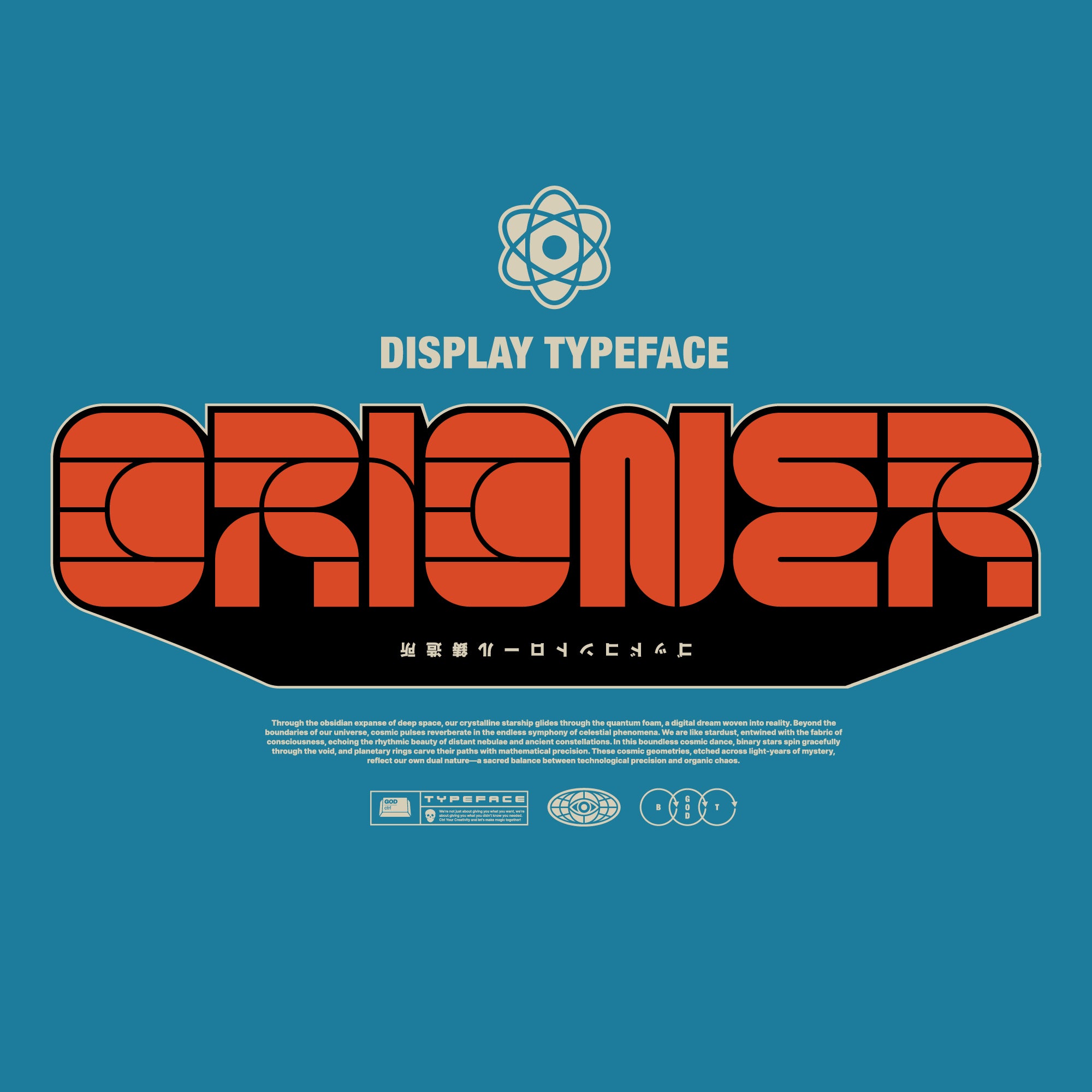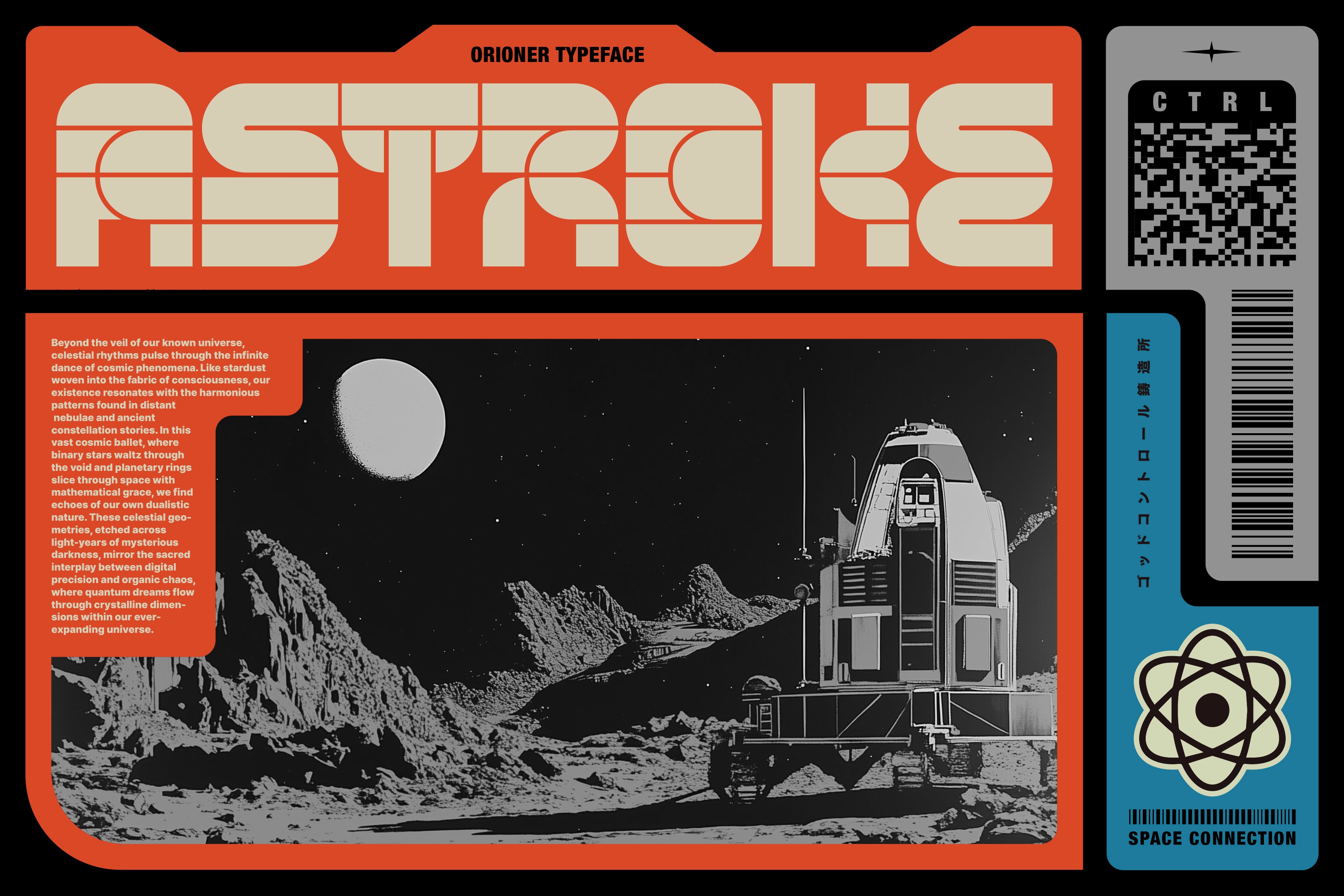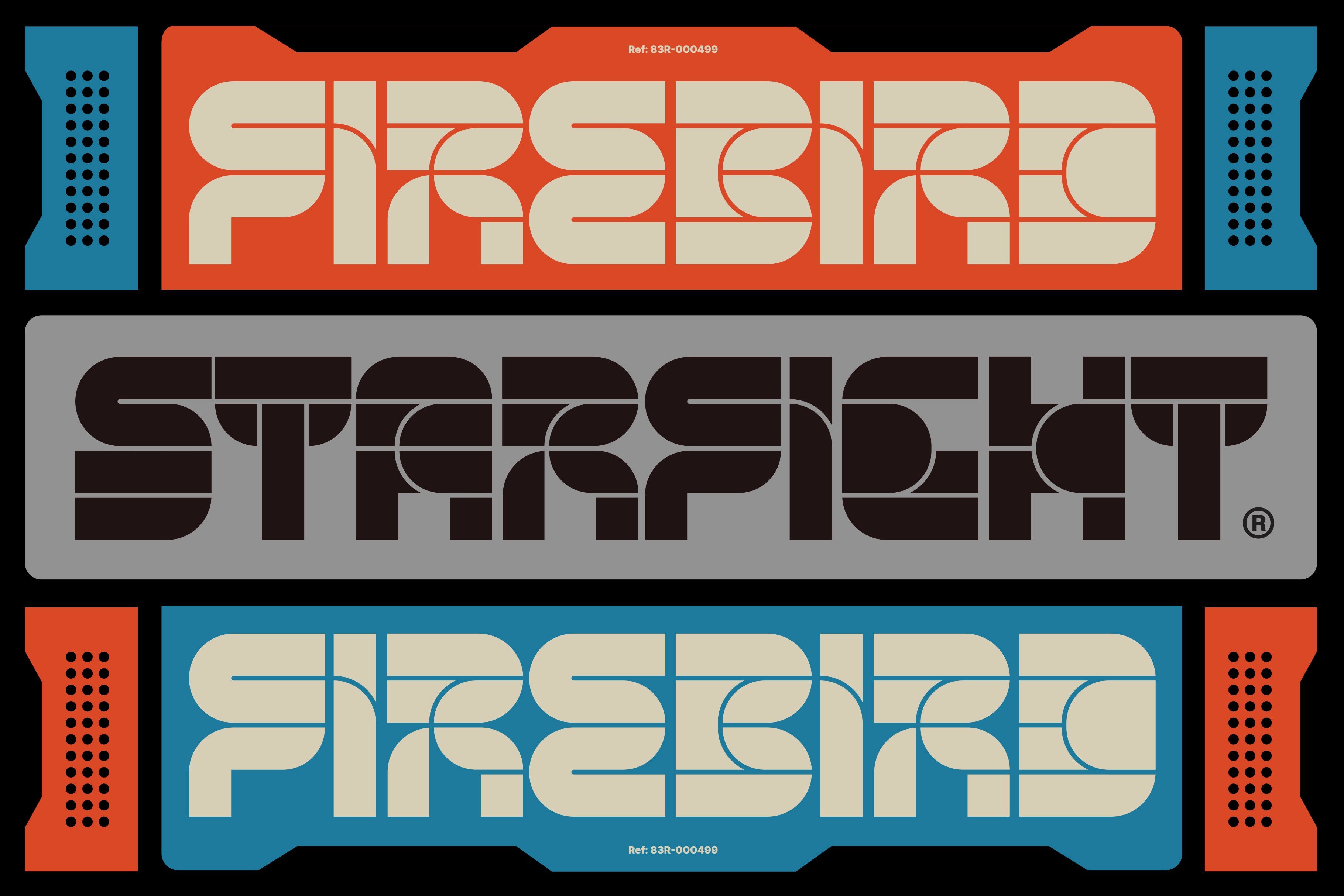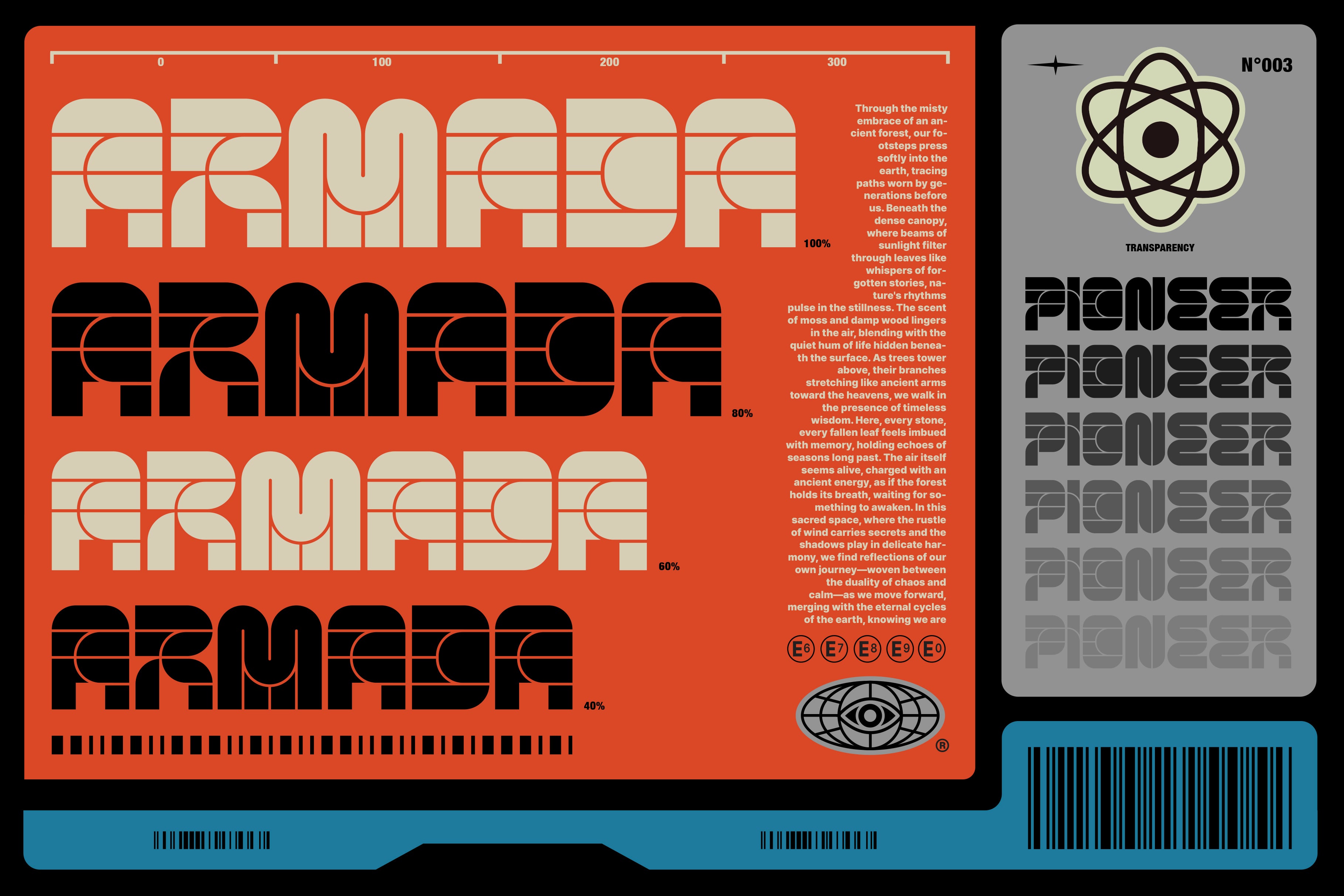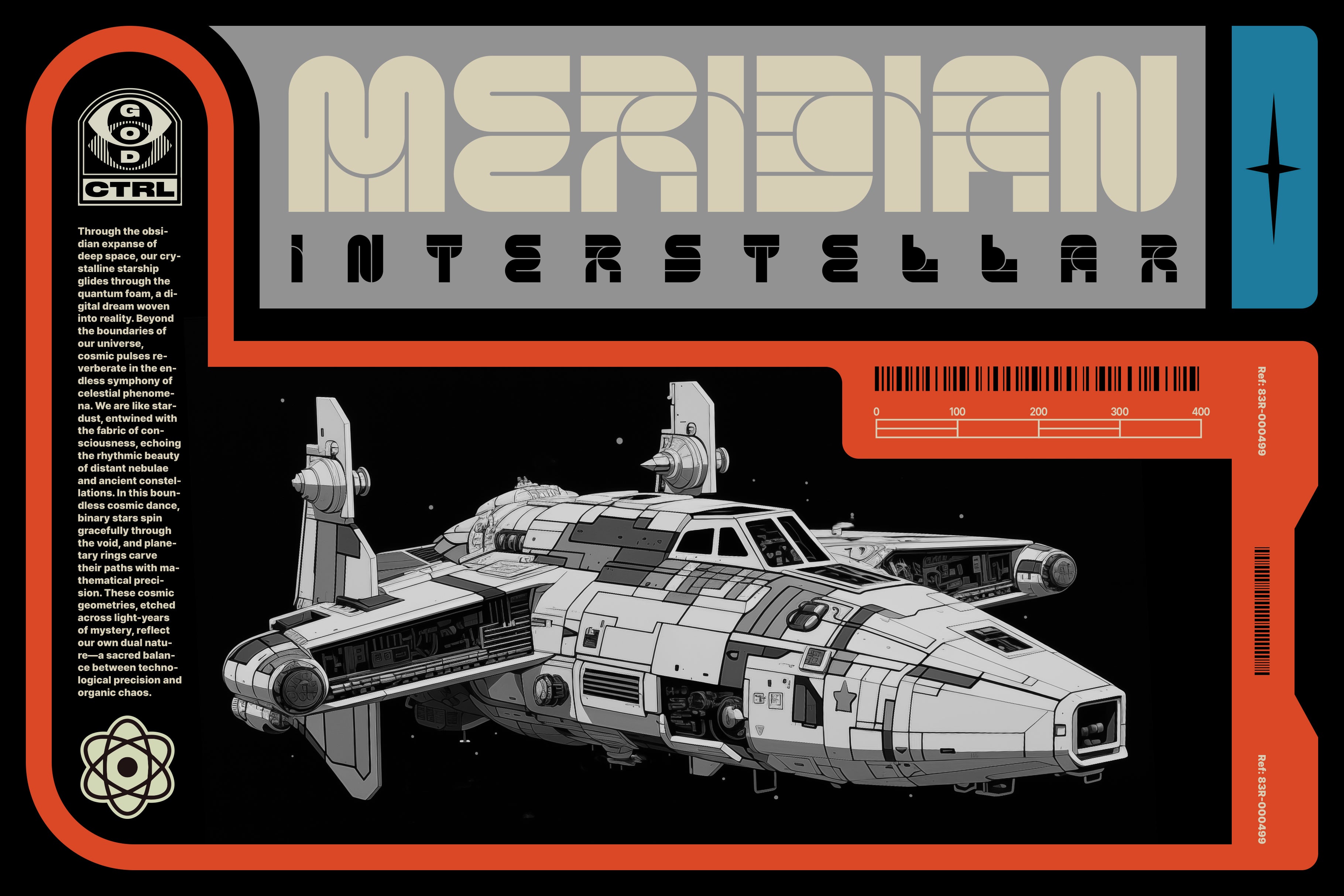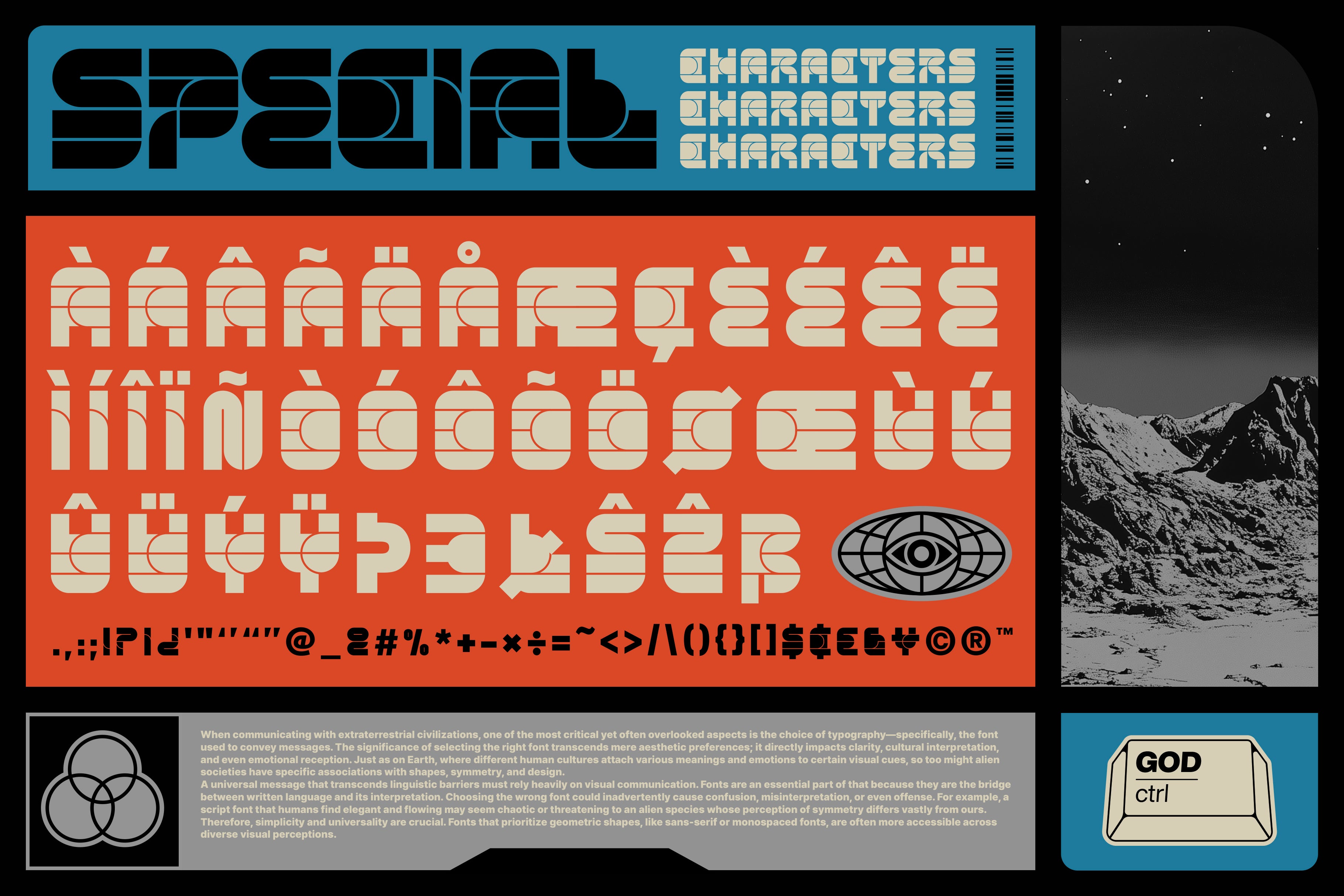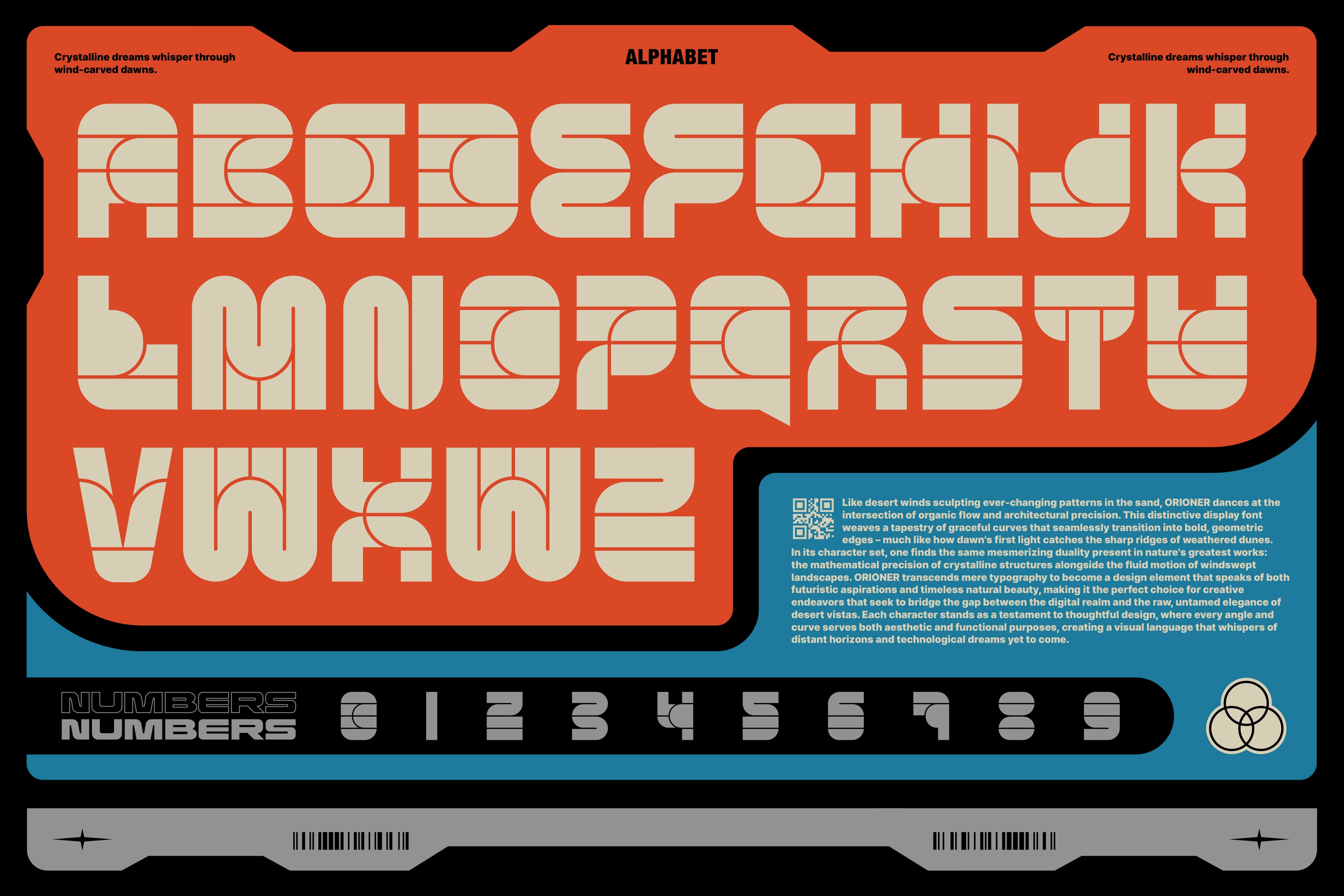
Orioner Display Typeface
The Orioner Display Typeface is a bold, futuristic font featuring 190 unique characters, including special characters and punctuation. It is available in multiple formats: OTF, TTF, WOFF, and WOFF2.